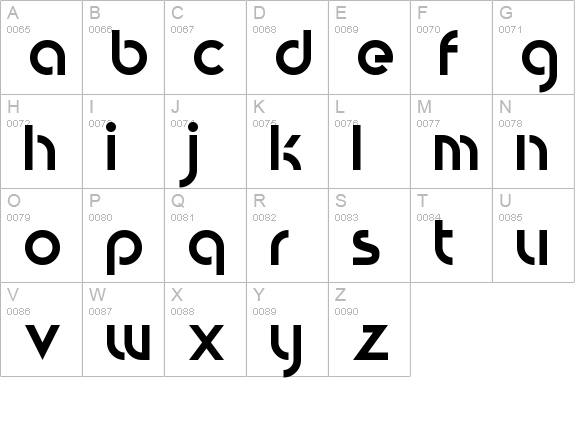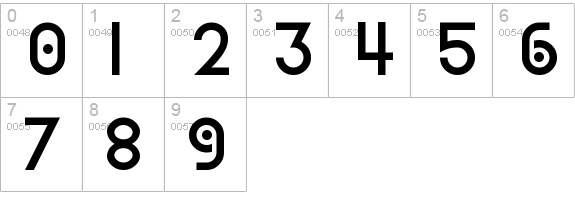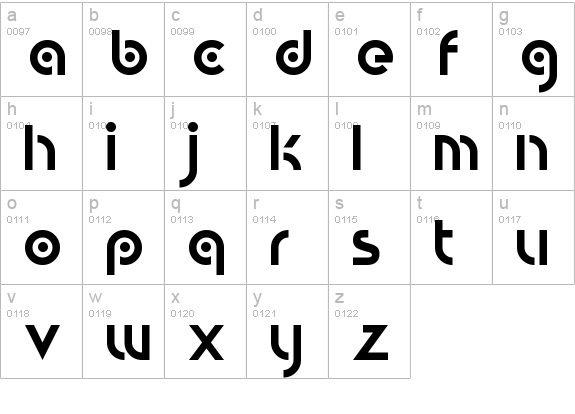
Circular Absracts font is a modern and stylish typeface that is perfect for adding a touch of sophistication to your designs. With its clean lines and unique circular shapes, this font is versatile and can be used for a variety of projects, from branding to marketing materials.
What sets Circular Absracts font apart is its free-spirited and abstract design, making it a standout choice for those looking to add a creative flair to their work. This font is sure to catch the eye and leave a lasting impression on viewers.